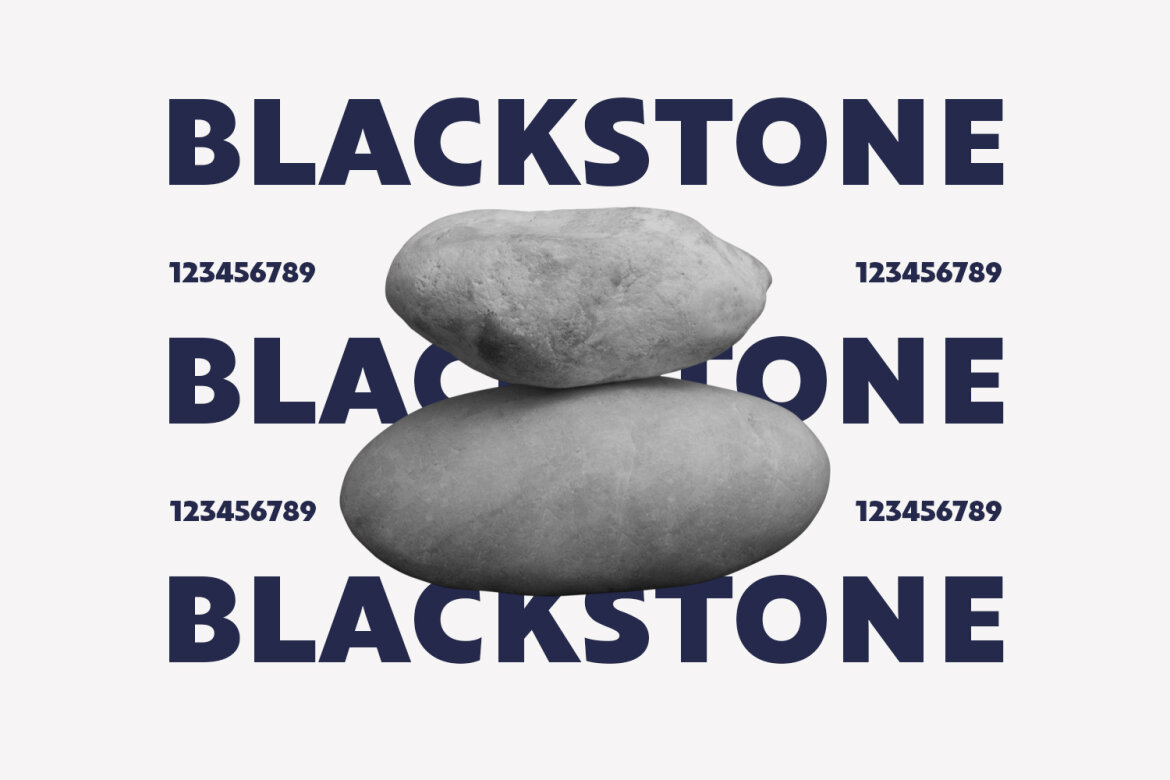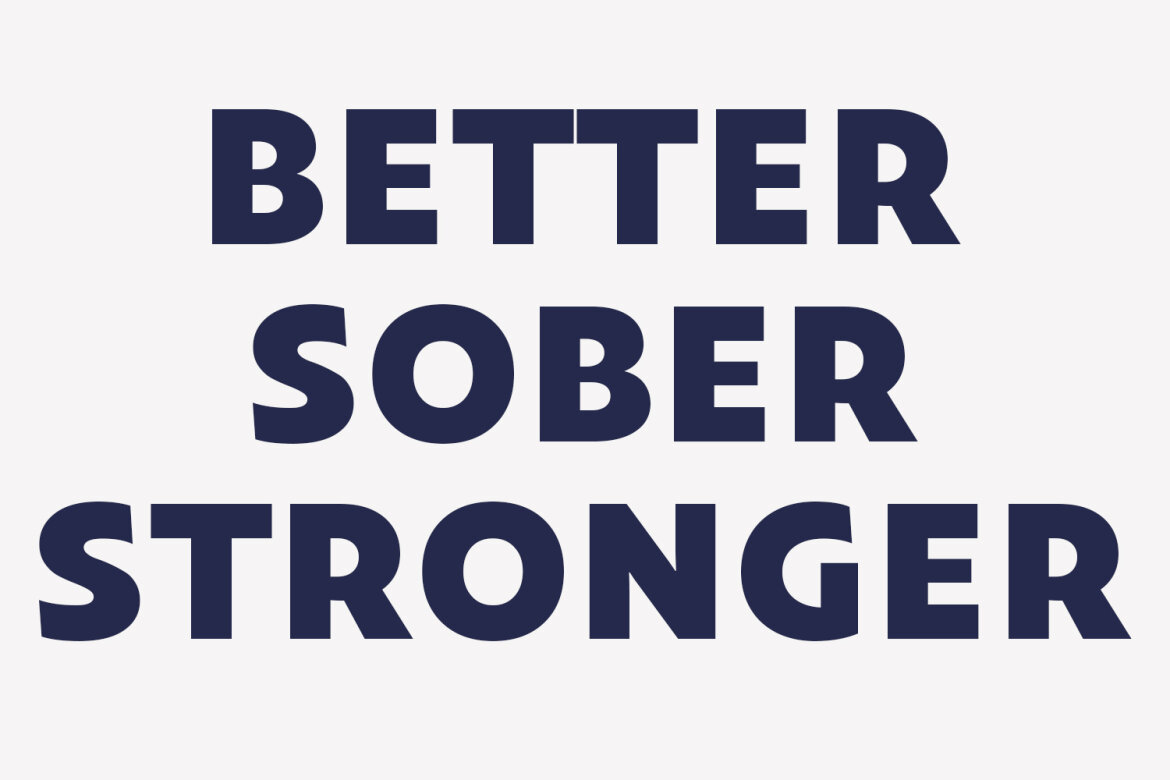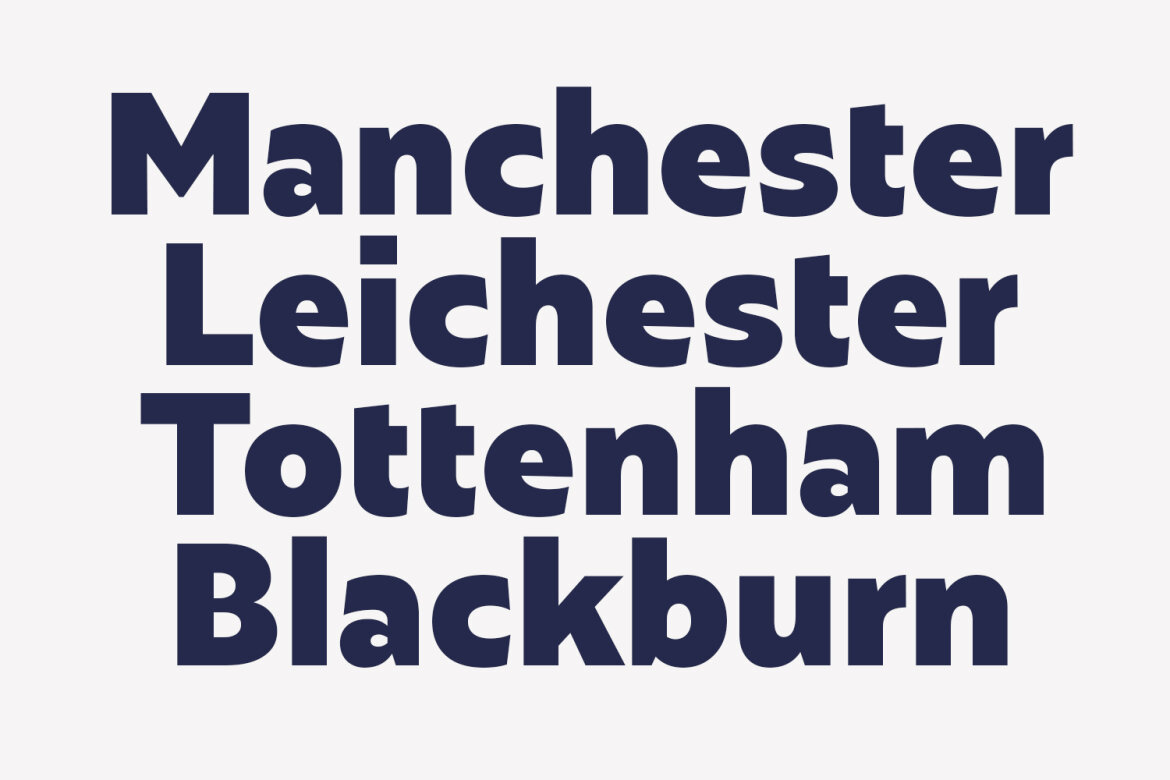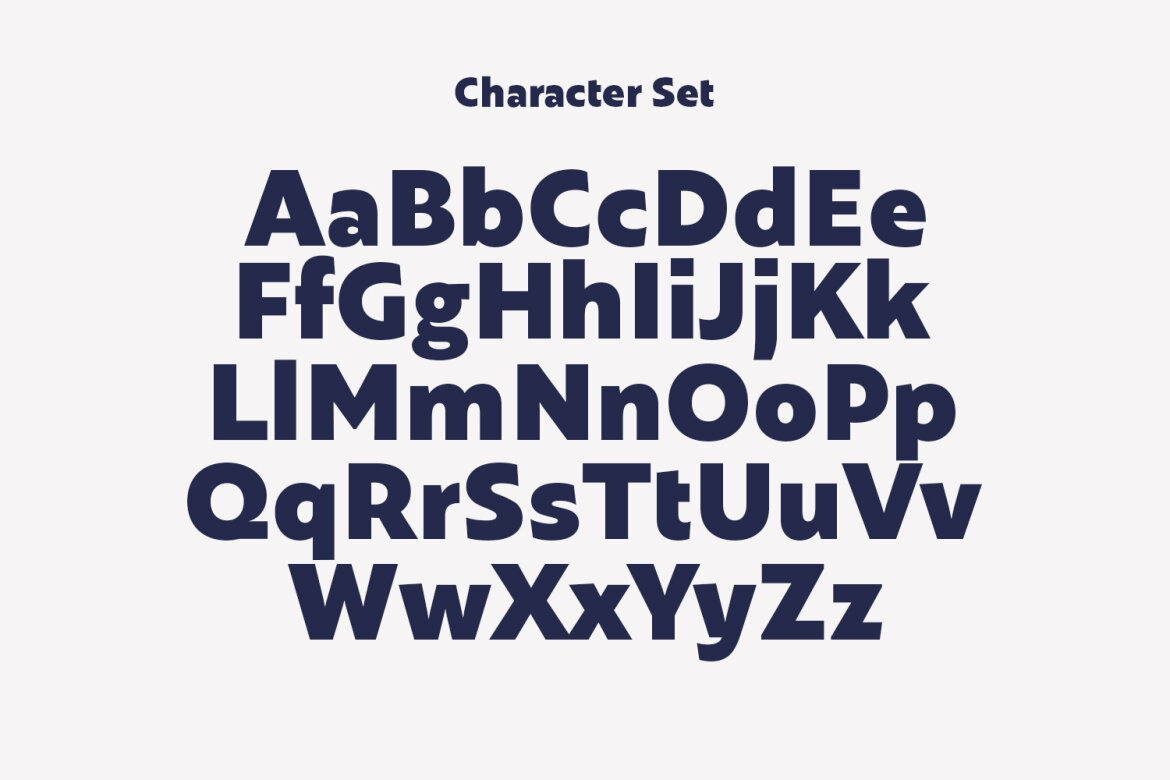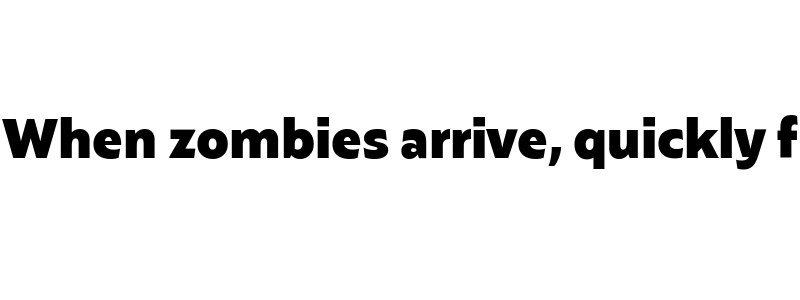
Graton Bold Sans FREE Font
Graton preview
Graton
Graton is a modern clean sans serif font. Bold stroke, fun character with a bit of ligatures and alternates. To give you an extra creative work. Graton font support multilingual more than 100+ language. This font is good for logo design, Social media, Movie Titles, Books Titles, a short text even a long text letter and good for your secondary text font with script or serif. Make a stunning work with Graton font.